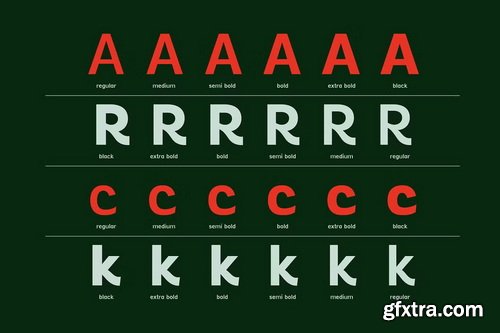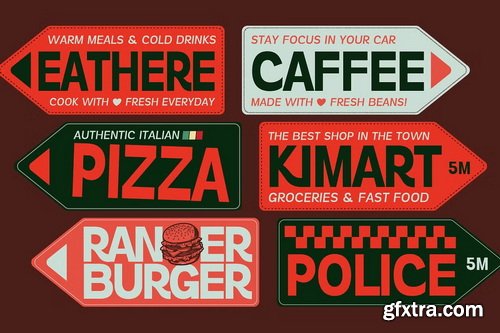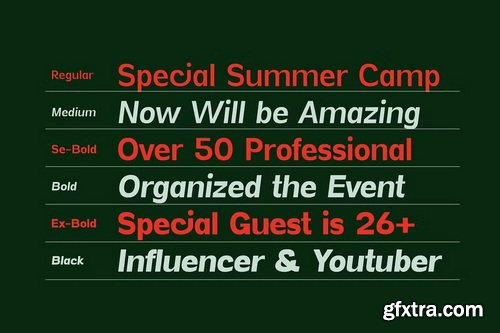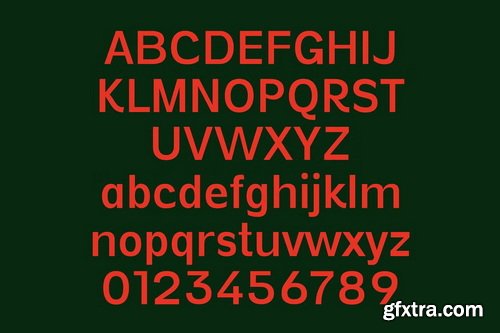
Vynce Sans is a unique, picturesque, retro, versatile sans-serif geometric typeface that delivers clean lines and timeless appeal. Designed for readability and versatility, this font family offers balance, clean, unique, and a good fit in a header or sub-header for your project will stand out. These unique, picturesque fonts are a good fit in fashion, print design, social media, nature events, creatives, branding, posters, logos, web typography, packaging, or editorial design. They will elevate your creative projects and keep your designs on-trend with a retro look.